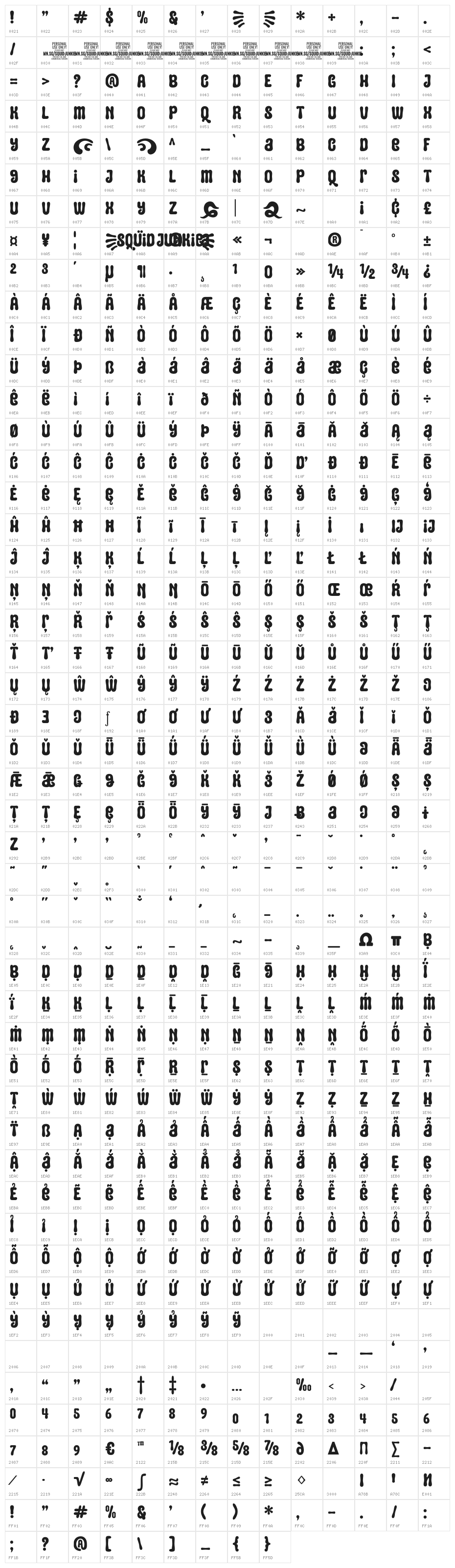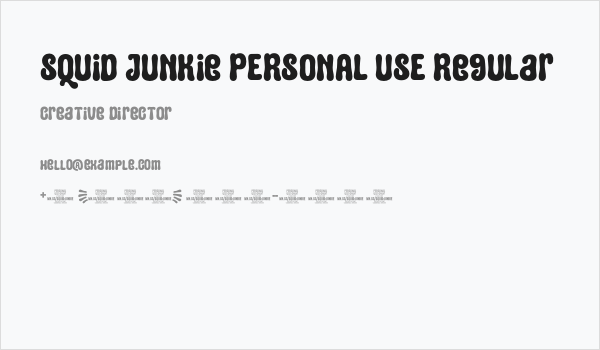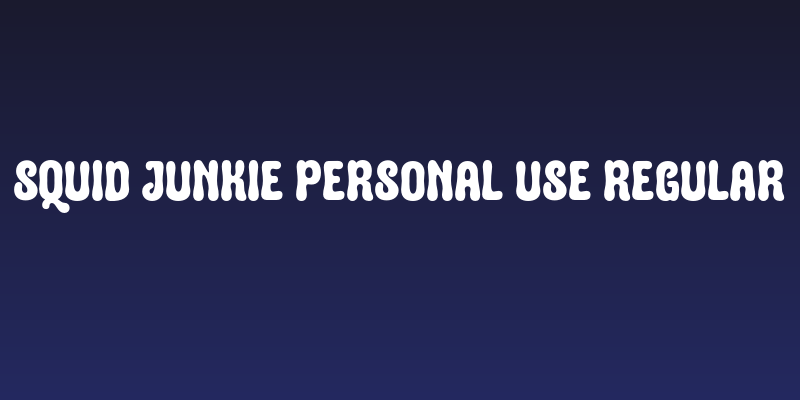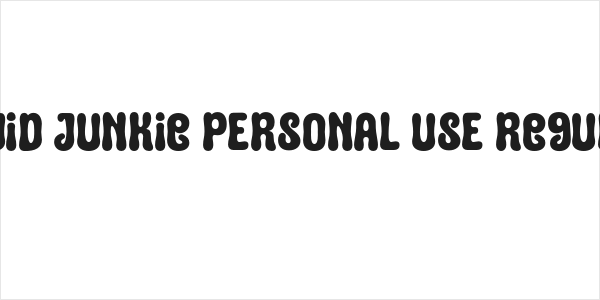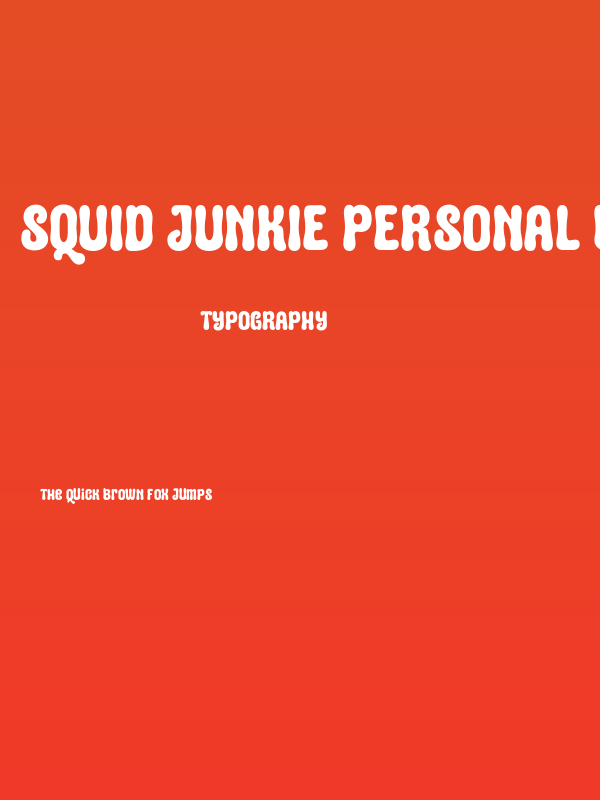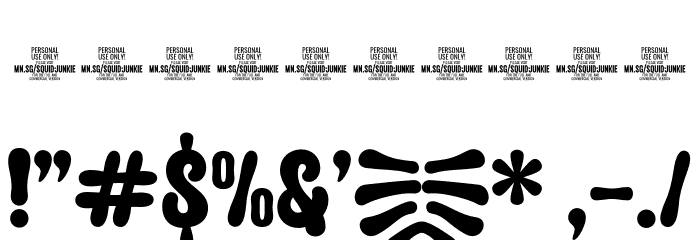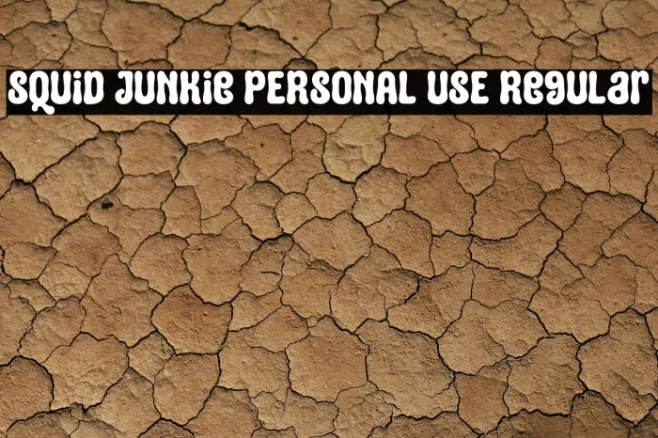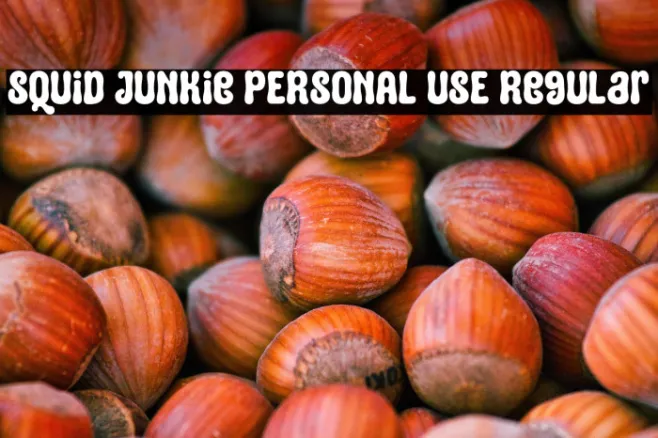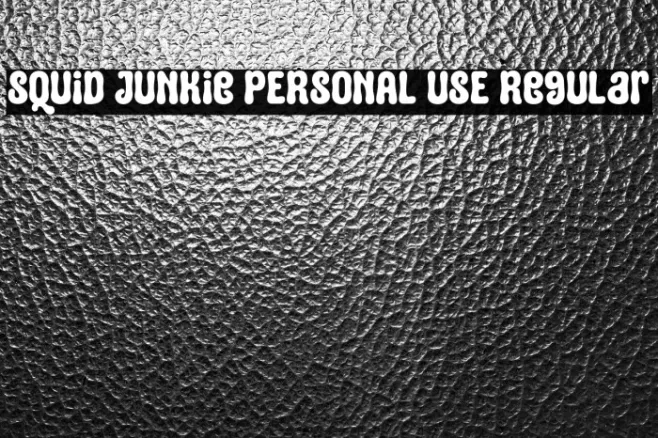
Squid Junkie PERSONAL USE Regular Font
| Gesamtstil | Retro, Playful |
| Vorgeschlagene Projekte | Ideal for children's books, playful branding, retro-themed posters, and creative social media graphics. |